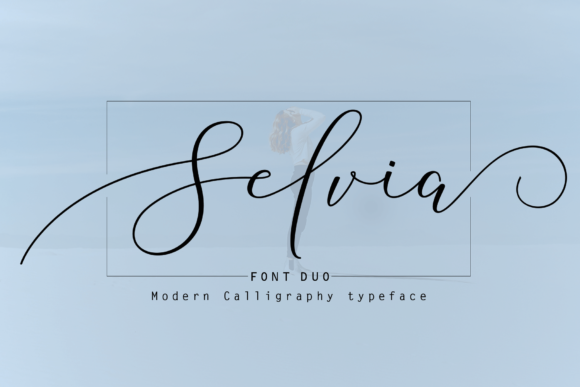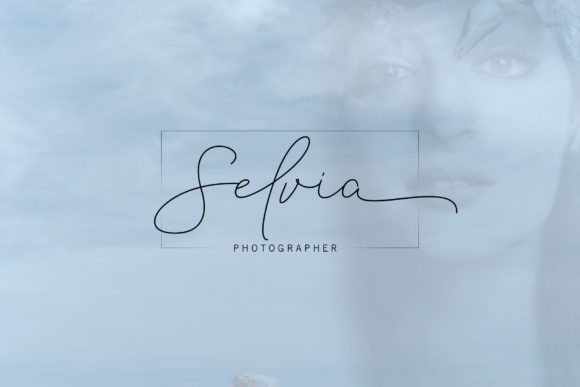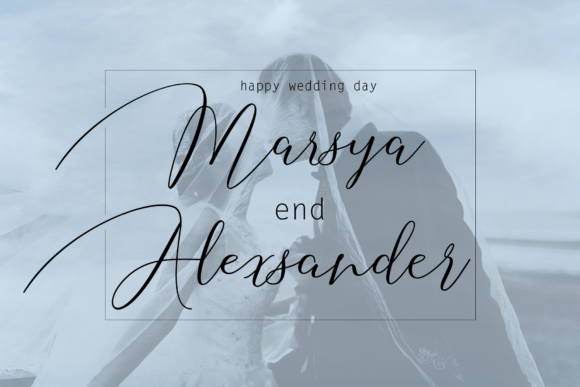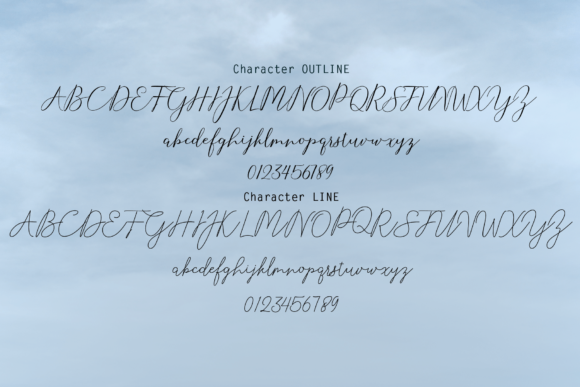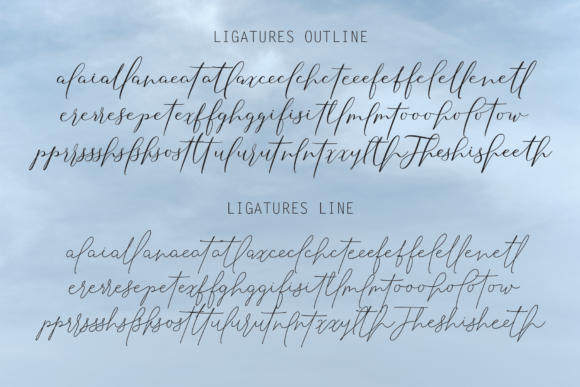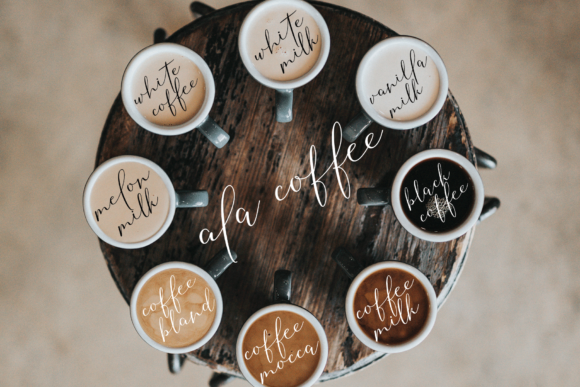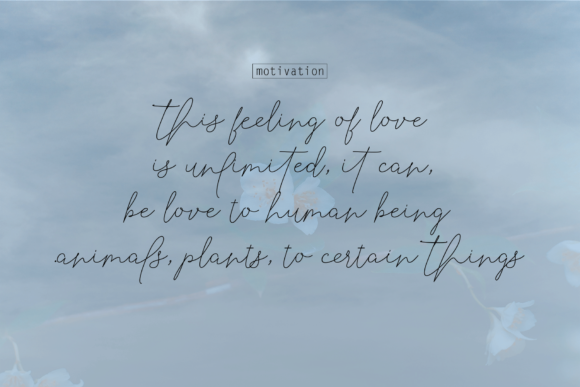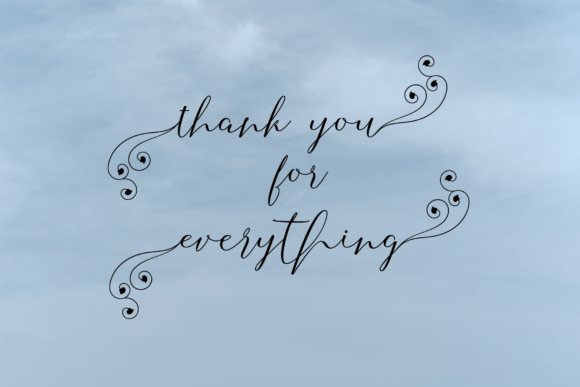
Selvia Duo Font
About Selvia Duo Font
The Sully is an elegant handwritten font duo. It comes in two styles which can be combined perfectly.
It has natural characteristics and is perfect for invitations, signatures, blogs, social media, business cards, and much more!